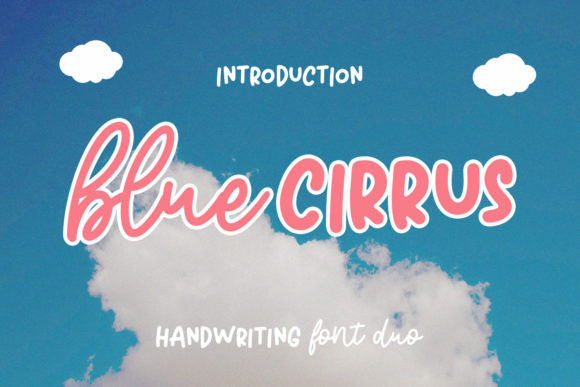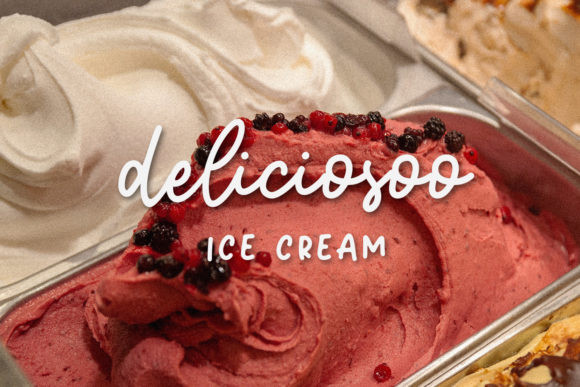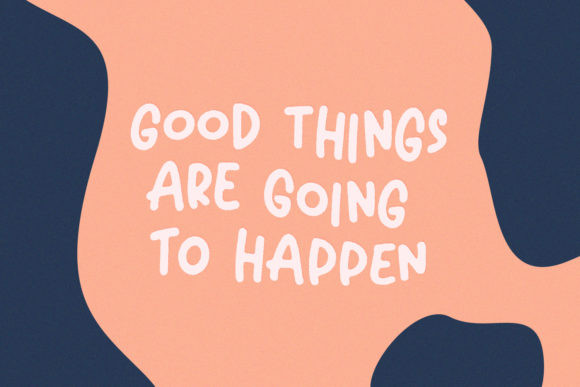
Blue Cirrus Font
Blue Cirrus is a cute and playful duo font (handwritten & display). This font was specially crafted for children,  birthday cards, cartoons and comic purposes.